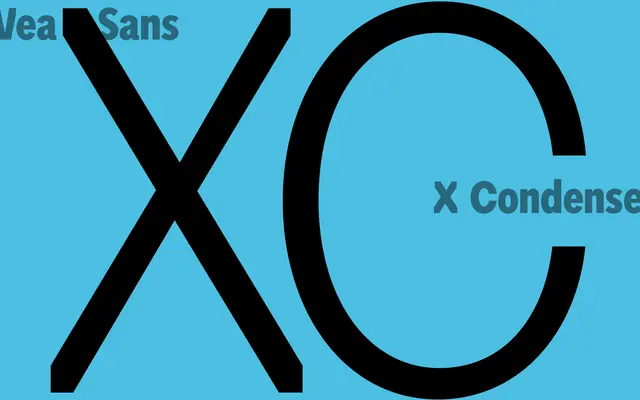
WEA Sans X Condensed
A2-Type · 2021
WEA Sans X Condensed specimen from A2-Type
The extra-condensed arm of the WEA type system, commissioned for Weekendavisen and awarded World's Best Designed Newspaper at SND in 2021 and 2026.
Nine weights from Thin to Black in an extra-condensed grotesque, designed as part of a large interconnected type system for Weekendavisen, the Danish weekly broadsheet. The broader WEA family spans Hairline, Display, Text and Sans variants, built to serve both print and screen across a paper with roots in Berlingske Tidende dating to 1749. The system received the Tokyo TDC Award in 2021 alongside back-to-back SND World's Best Designed Newspaper recognition.
A condensed grotesque sans designed as part of a large newspaper type system, the extra-condensed width serving dense editorial layouts across print and screen.